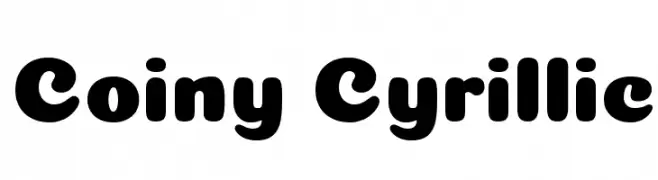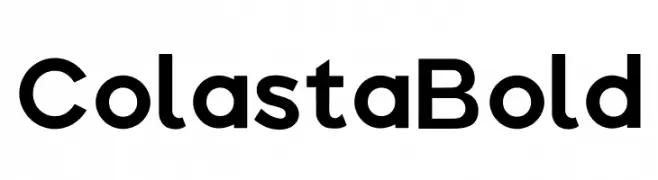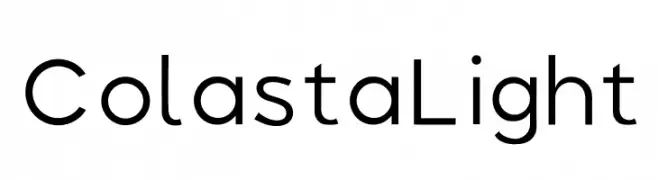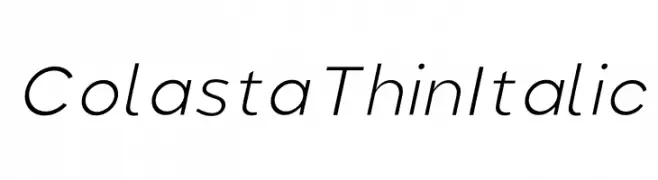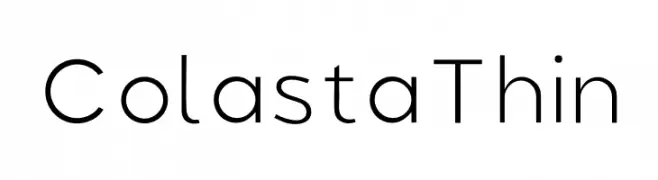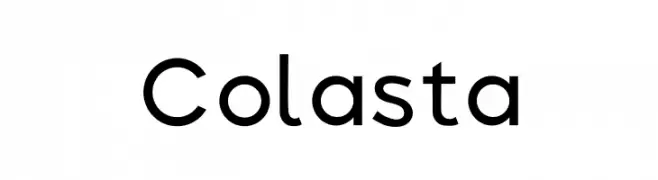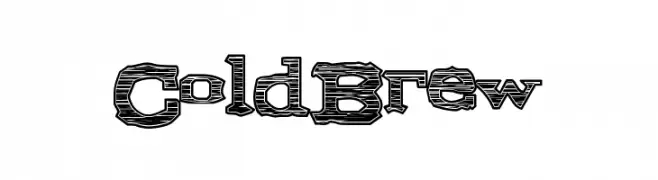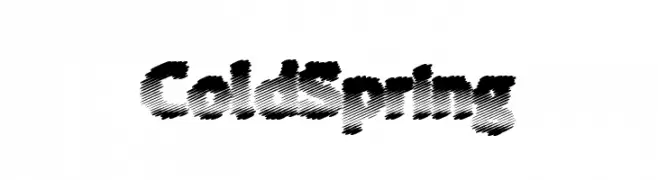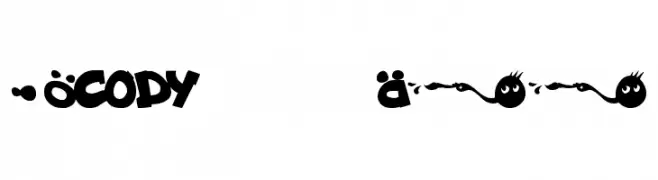
A playful, bold font with cartoonish, hand-drawn letterforms.
A bold, rounded font with a playful and friendly style.
A modern, geometric sans-serif font with uniform strokes and balanced characters.
A bold, modern sans-serif font with clean lines and rounded edges.
A modern, minimalist sans-serif font with smooth curves and uniform strokes.
A modern, minimalist font with thin strokes and rounded edges.
A sleek, thin, and italicized font with a modern aesthetic.
A bold, rugged font with a hand-drawn, vintage aesthetic.
A bold, decorative font with a three-dimensional, industrial look.
A bold, textured font with diagonal line patterns and high contrast.